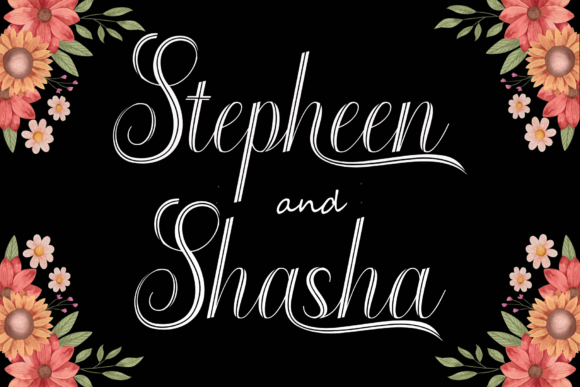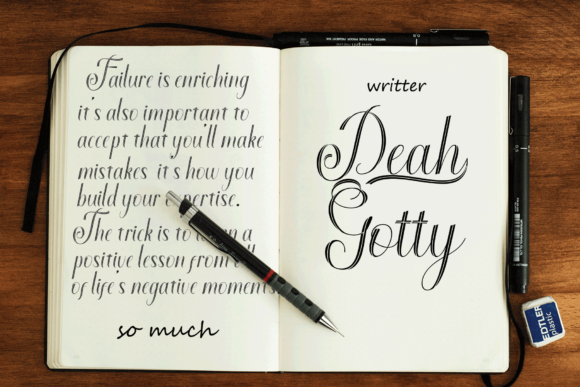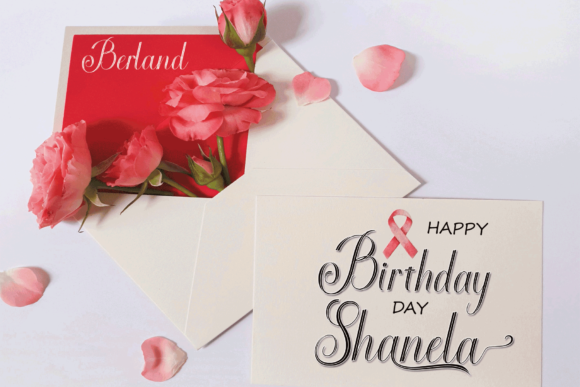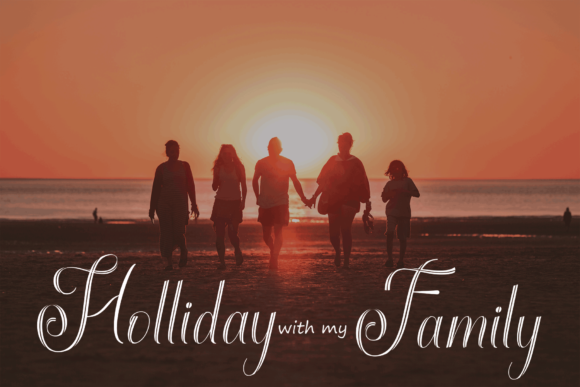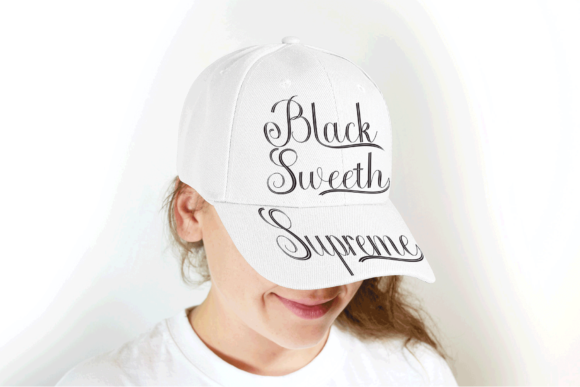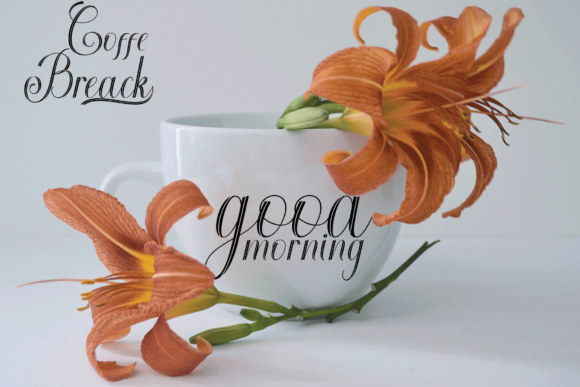
Discover the Amazing Belgalyn Font: A Freestyle Script Font for Crafters and Designers
Are you a designer or crafter looking for a unique and versatile font to elevate your creative projects? Look no further than the Belgalyn Font! This stunning script font is designed in a freestyle manner, making it perfect for a wide range of applications. From logos and wedding invitations to headings, t-shirts, and more, Belgalyn is the ideal choice for anyone seeking a high-quality, visually appealing font.
What Makes Belgalyn Font So Special?
Belgalyn Font is an amazing script font that boasts a range of features that set it apart from other fonts on the market. Here are just a few reasons why designers and crafters love Belgalyn:
- PUA Encoding: Belgalyn Font is PUA (Private Use Area) encoded, which means that you can access all of the glyphs and swashes with ease. This makes it simple to customize your text and add unique touches to your designs.
- Freestyle Design: Belgalyn Font is designed in a freestyle manner, giving it a relaxed, organic feel that’s perfect for creative projects. The font’s irregularities and imperfections add to its charm, making it ideal for designs that require a personal touch.
- Versatility: Belgalyn Font is incredibly versatile, making it suitable for a wide range of applications. Whether you’re designing a logo, creating wedding invitations, or crafting signage, Belgalyn is the perfect choice.
Belgalyn Font is perfect for various purposes, including:
- Logos: Create a unique and memorable logo for your business or brand with Belgalyn Font.
- Wedding Invitations: Add a touch of elegance and sophistication to your wedding invitations with Belgalyn Font.
- Headings: Use Belgalyn Font to create eye-catching headings for your blog posts, articles, or website.
- T-Shirts: Design custom t-shirts with Belgalyn Font for a unique and stylish look.
- Letterheads: Elevate your business correspondence with Belgalyn Font on your letterheads.
- Signage: Create eye-catching signage for your business or event with Belgalyn Font.
- Labels: Design custom labels for your products or packaging with Belgalyn Font.
- News: Use Belgalyn Font to create engaging and readable news articles or blog posts.
- Posters: Create stunning posters for your business, event, or promotion with Belgalyn Font.
- Badges: Design custom badges for your business, event, or organization with Belgalyn Font.
Why Choose Belgalyn Font?
With so many fonts available, why choose Belgalyn Font? Here are just a few reasons why designers and crafters prefer Belgalyn:
- Unique and Memorable: Belgalyn Font is a unique and memorable font that will help your designs stand out from the crowd.
- Easy to Use: Belgalyn Font is easy to use, even for those with limited design experience. The font’s PUA encoding makes it simple to access all of the glyphs and swashes.
- High-Quality: Belgalyn Font is a high-quality font that’s designed to deliver exceptional results. The font is carefully crafted to ensure that it looks great in any application.
| Font Name | Belgalyn Font |
| Author | MYdesign |
In conclusion, Belgalyn Font is an amazing script font that’s perfect for designers and crafters. With its freestyle design, PUA encoding, and versatility, Belgalyn is the ideal choice for a wide range of applications. Whether you’re creating logos, wedding invitations, headings, or more, Belgalyn Font is sure to deliver exceptional results. So why wait? Download Belgalyn Font today and take your designs to the next level!